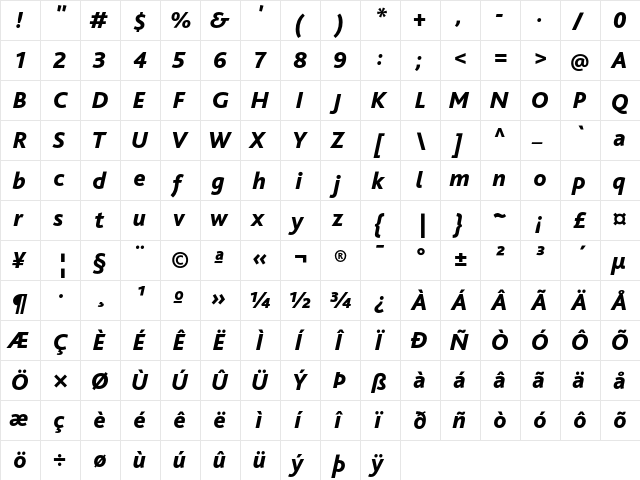
BlissPro Italic
Design Context for BlissPro Typeface
BlissPro is a composed and adaptable typeface that performs quietly and consistently across a wide range of design contexts. The dynamic lean of this cut emphasises speed and emphasis in any layout.
Pro Tip: Try BlissPro for annotation and caption copy alongside an upright companion — the contrast in angle creates a dynamic but ordered typographic system.